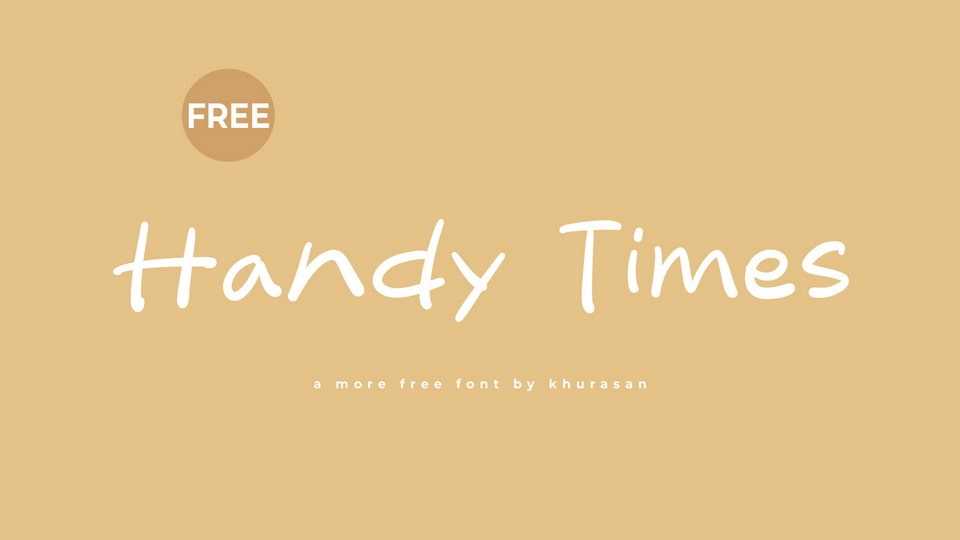
Download Handy Times font, a natural and organic hand-drawn typeface that embodies the essence of free-flowing creativity. With its imperfections and authenticity, Handy Times font is perfect choice for projects that seek a genuine, organic, and artisanal aesthetic.